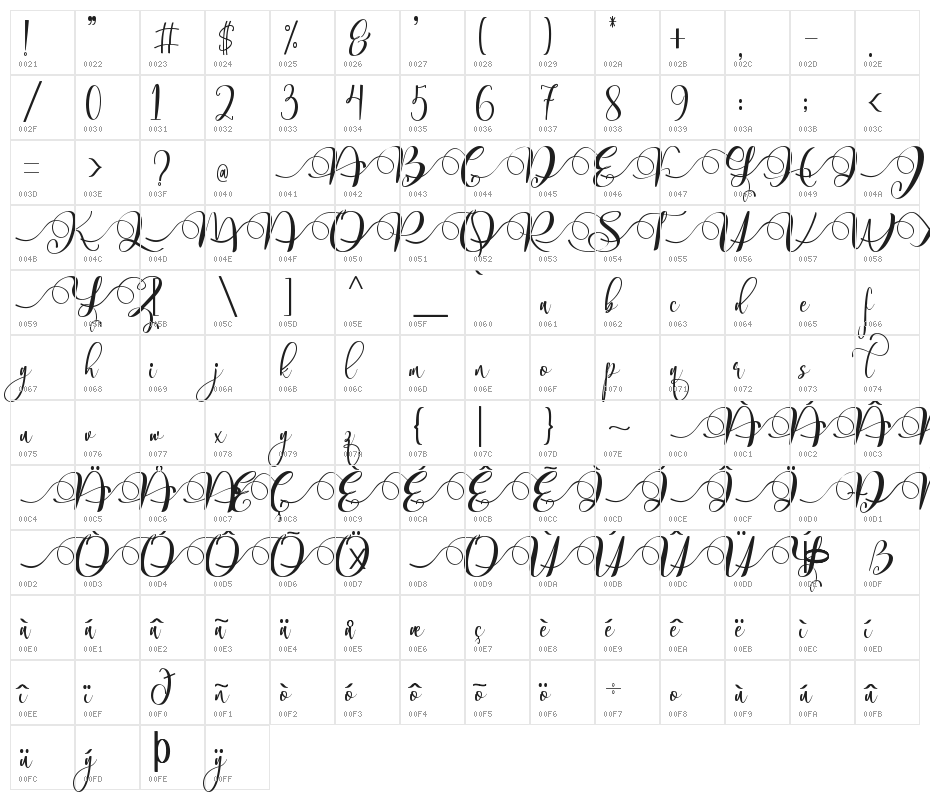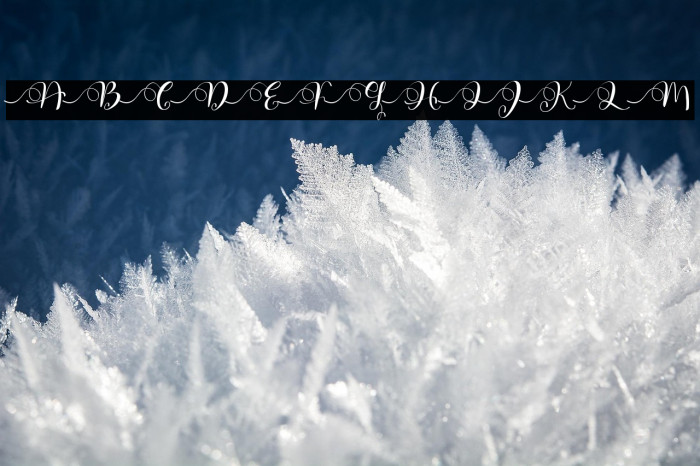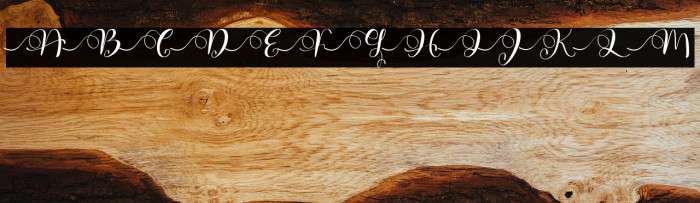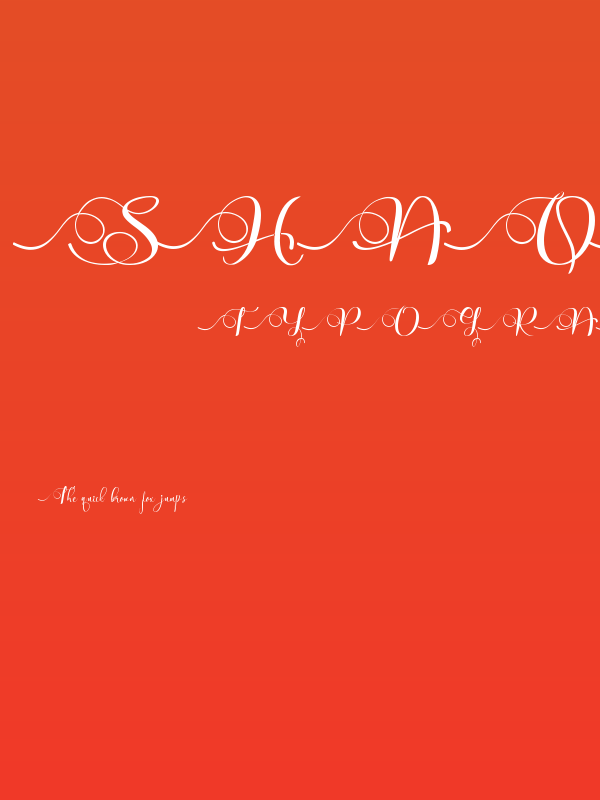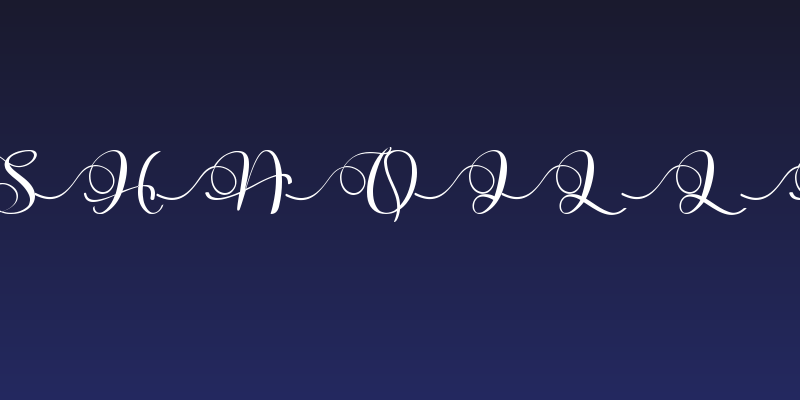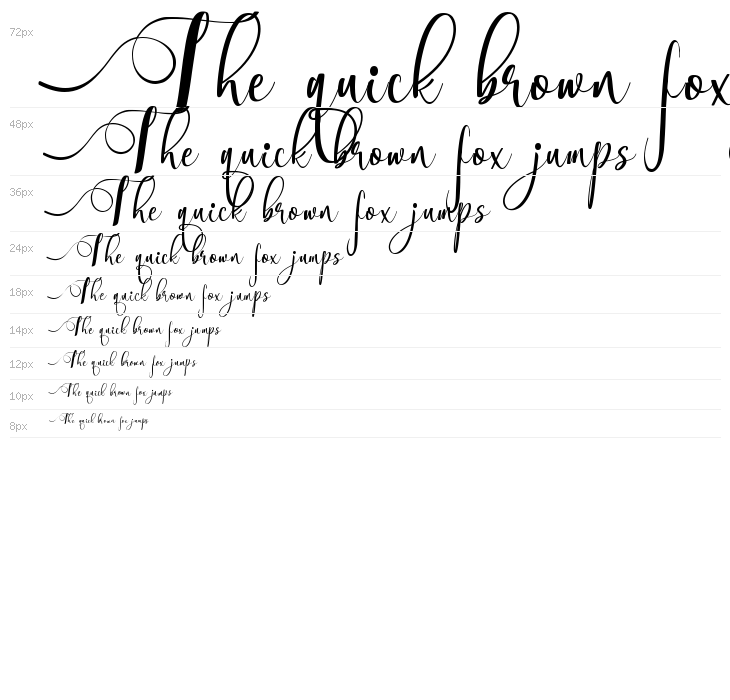
shaqilla Font
shaqilla Description
This elegant script font features intricate swirls and flourishes, giving it a sophisticated and decorative appearance. The uppercase letters are particularly ornate, with elaborate loops and curves that add a touch of luxury and refinement. The lowercase letters maintain a consistent style, with smooth, flowing lines that enhance readability while retaining the font's artistic flair. The numerals are tall and slender, complementing the overall aesthetic. Special characters are designed with the same attention to detail, making this font suitable for a variety of creative applications.
| Use Case | Logos, Invitations, Decorative Text |
| Proposed Projects | Ideal for wedding invitations, luxury branding, greeting cards, and elegant packaging. |